Choosing the right travel poster fonts can completely transform the mood and impact of your design. Travel posters are meant to spark curiosity, evoke adventure, and create emotional connections with destinations. Before viewers read the message, they experience the typography. That is why selecting creative travel typography is not just a stylistic decision; it’s a branding strategy.
Whether you are designing for tourism campaigns, airline promotions, travel agencies, or digital travel blogs, typography shapes how people imagine a destination. In this guide, we’ll explore creative travel poster fonts that inspire exploration and help your next design stand out.
Why Typography Matters in Travel Poster Design
Travel posters are visual storytelling tools. They must communicate the atmosphere instantly.
Effective travel typography should:
- Reflect the destination’s personality
- Capture emotion and movement
- Remain readable from a distance
- Works well in print and digital formats
1. Baigont Elegant Sans Serif Font
Explore the captivating ‘Baigont’ font, where a beautiful series of letters converges to elevate your writing experience. The meticulous, neat lettering is tailored to fulfill modern writing needs, offering a seamless fusion of contemporary style and visual appeal.
2. Circle Amolens Bold Serif Font
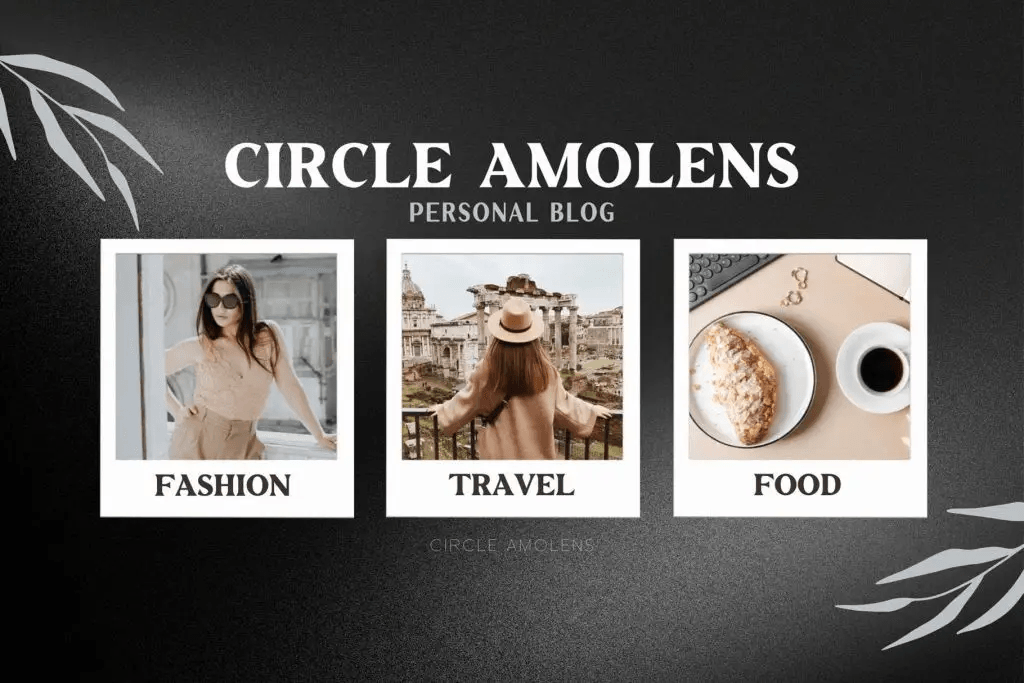
Discover Circle Amolens, a bold serif font designed to bring sophistication and elegance to your creative projects.
3. Vacation Serif Font
Vacation is a beauty serif font that combines elegance with versatility. Its timeless design makes it the perfect choice for a wide variety of projects.
How to Choose the Right Travel Poster Fonts
1. Define the Destination Personality
Ask yourself:
- Is the location adventurous?
- Is it relaxing and tropical?
- Is it cultural and historic?
- Is it luxurious and exclusive?
Your font choice should match that identity.
2. Prioritize Readability
Travel posters are often viewed from a distance. Choose travel typography that remains clear and legible at large sizes.
Avoid overly decorative typefaces for essential information.
3. Create Hierarchy
Use typography strategically:
- Bold font for destination name
- Secondary font for tagline
- Simple font for details
A clear hierarchy ensures your poster communicates effectively.
Color and Travel Poster Fonts
High-Contrast Combinations
Examples:
- White text on deep blue
- Yellow on navy
- Cream on forest green
Contrast enhances visibility and emotional impact.
Reflect Cultural Context
Travel poster fonts should respect local culture and aesthetic identity. For example, Mediterranean destinations may benefit from serif elegance, while tropical islands may suit brush lettering.
Font Pairing for Travel Posters
Combine:
- One bold headline font
- One clean supporting font
Avoid mixing too many decorative styles.
Balance Personality and Clarity
Creative travel poster fonts can be expressive, but clarity should never be sacrificed.
Digital Adaptation of Travel Poster Fonts
Modern travel posters are often shared online. Travel poster fonts must be readable on:
- Instagram posts
- Pinterest pins
- Website banners
- Mobile screens
Design with responsive scaling in mind.
Final Thoughts on Travel Poster Fonts
Creative travel typography plays a powerful role in inspiring adventure and shaping how people imagine a destination. Whether you choose sans-serif styles or bold serif fonts, your font should align with the story you want to tell.
Typography turns a beautiful landscape into a compelling invitation. When thoughtfully selected and paired with strong visuals, travel poster fonts help transform curiosity into real-world exploration.
Design boldly, stay readable, and let typography guide the journey.